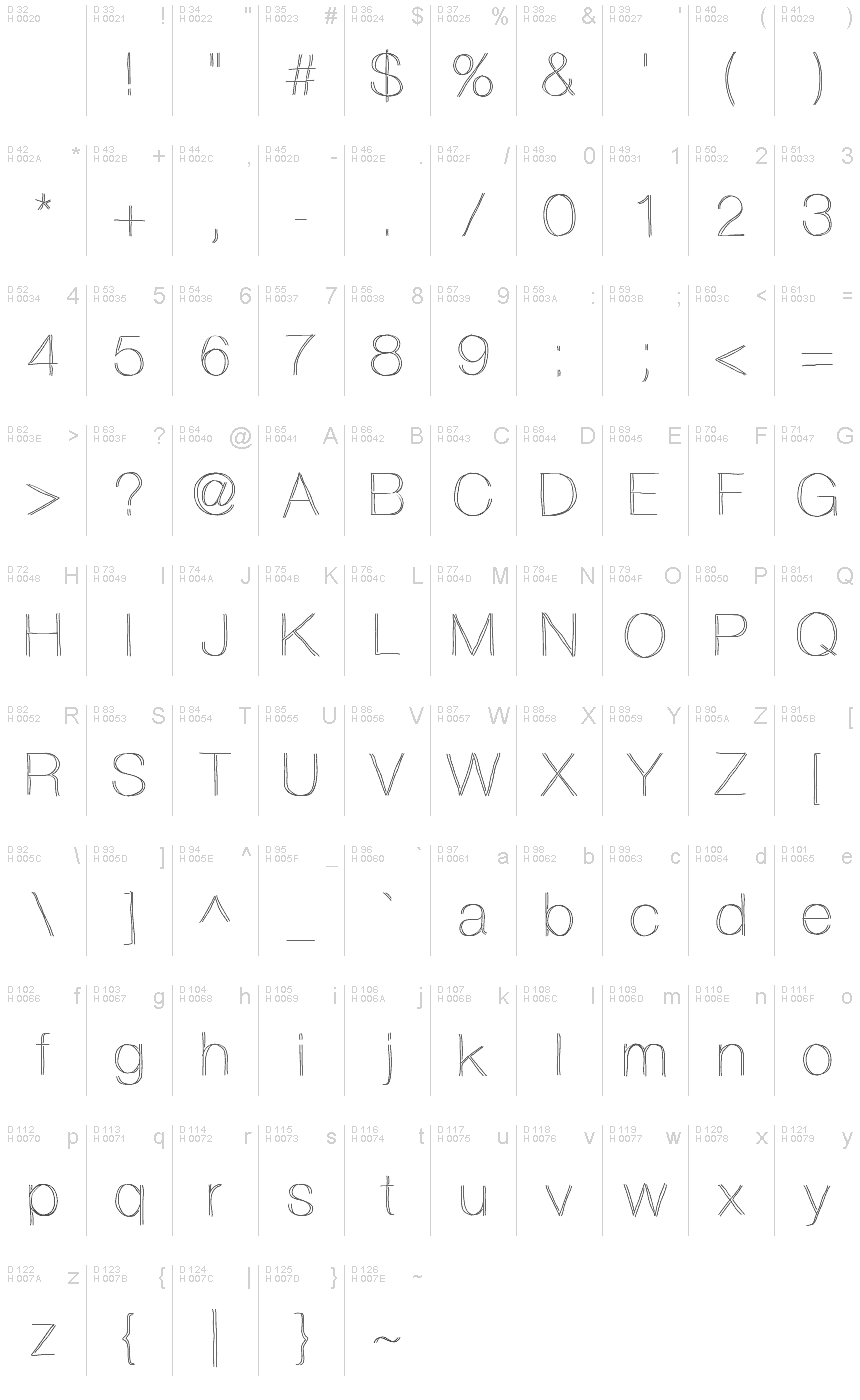
Ovrlap
Ovrlap, a captivating display font designed by Jake Luedecke, exudes a unique and mesmerizing aesthetic. Its light weight and distinctive overlapping letters create a bold, modern, and eye-catching visual impact. The intertwining letterforms and playful negative spaces imbue Ovrlap with an avant-garde flair, making it an excellent choice for headers, titles, and attention-grabbing design elements. This font's versatility allows it to seamlessly integrate into a wide range of contemporary design applications, from editorial layouts to branding and packaging.
Ovrlap's distinctive style effortlessly blends the boundaries between legibility and artistic expression, offering designers a captivating typographic tool to elevate their creative projects.